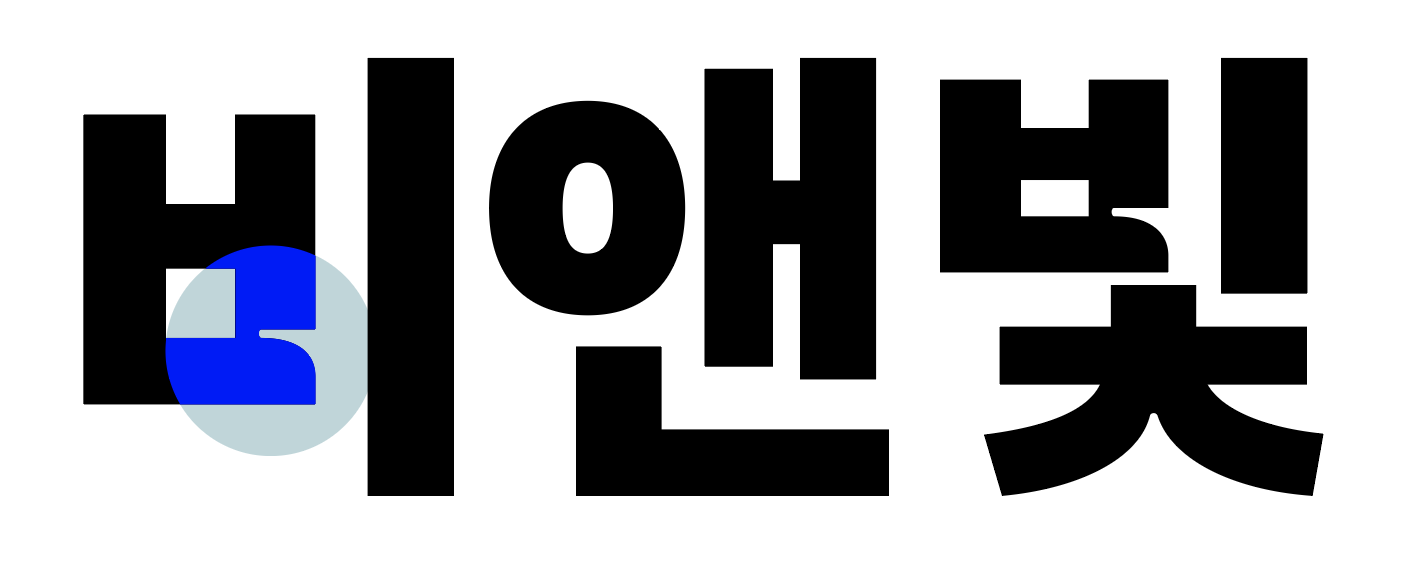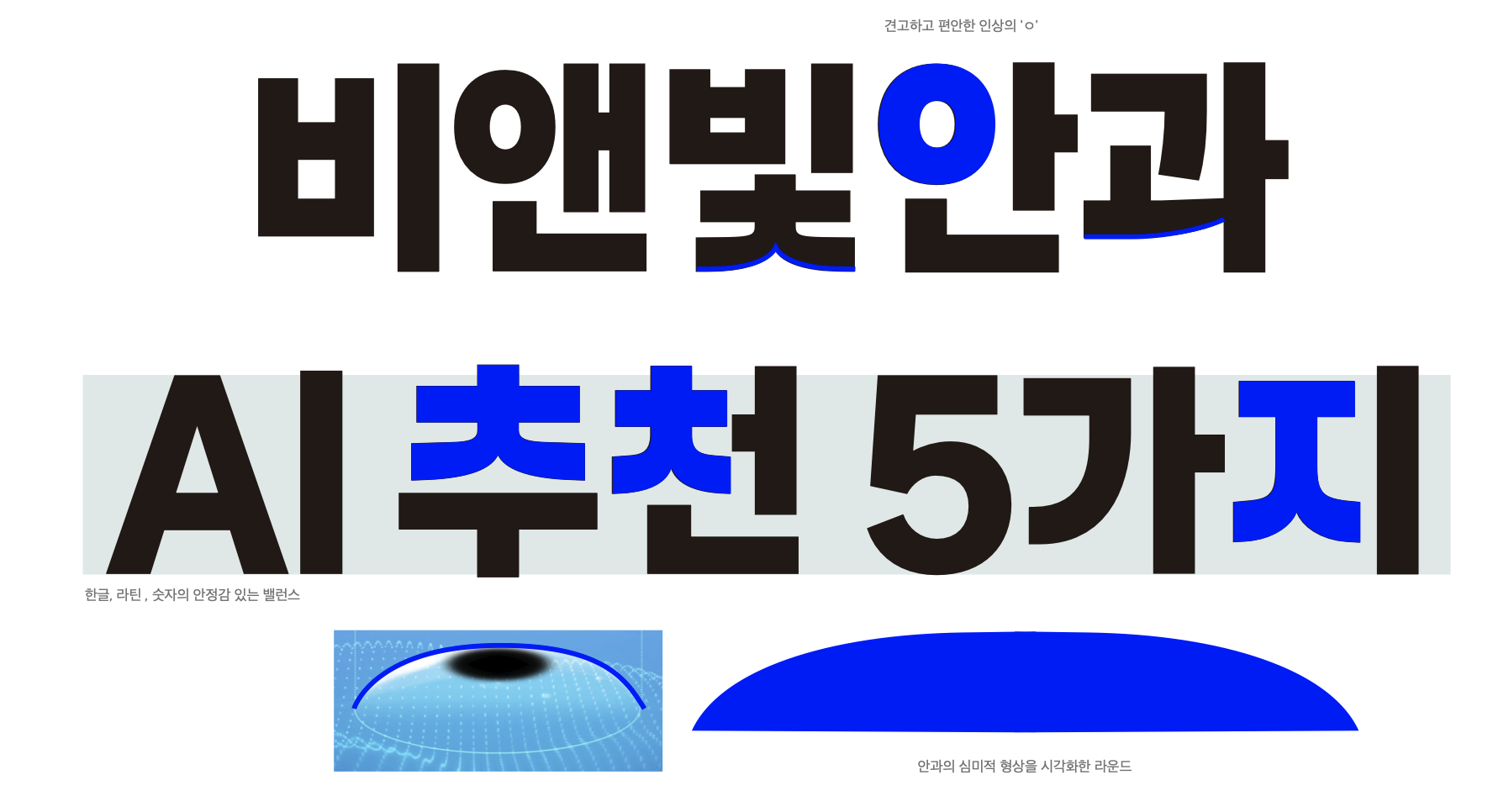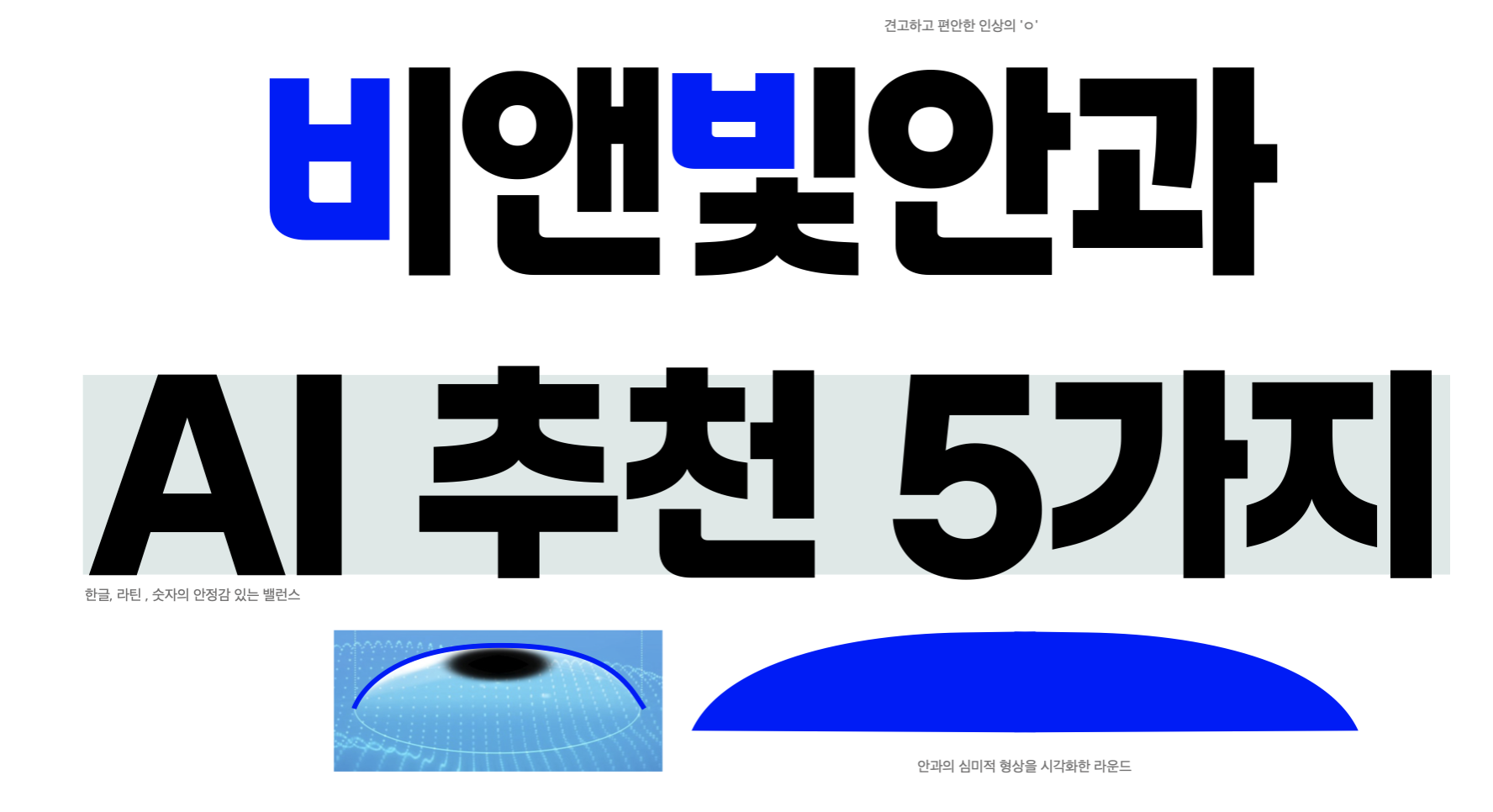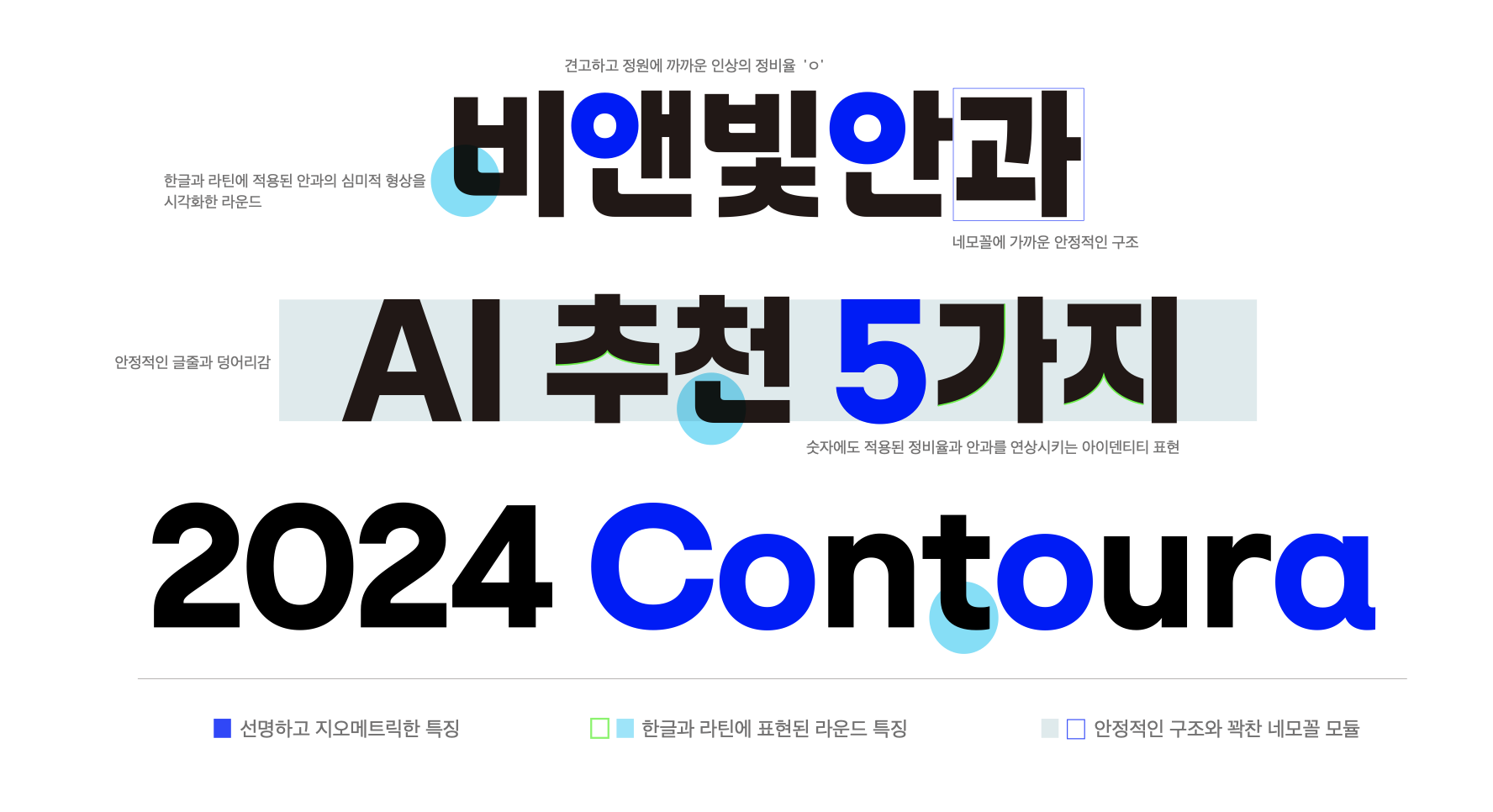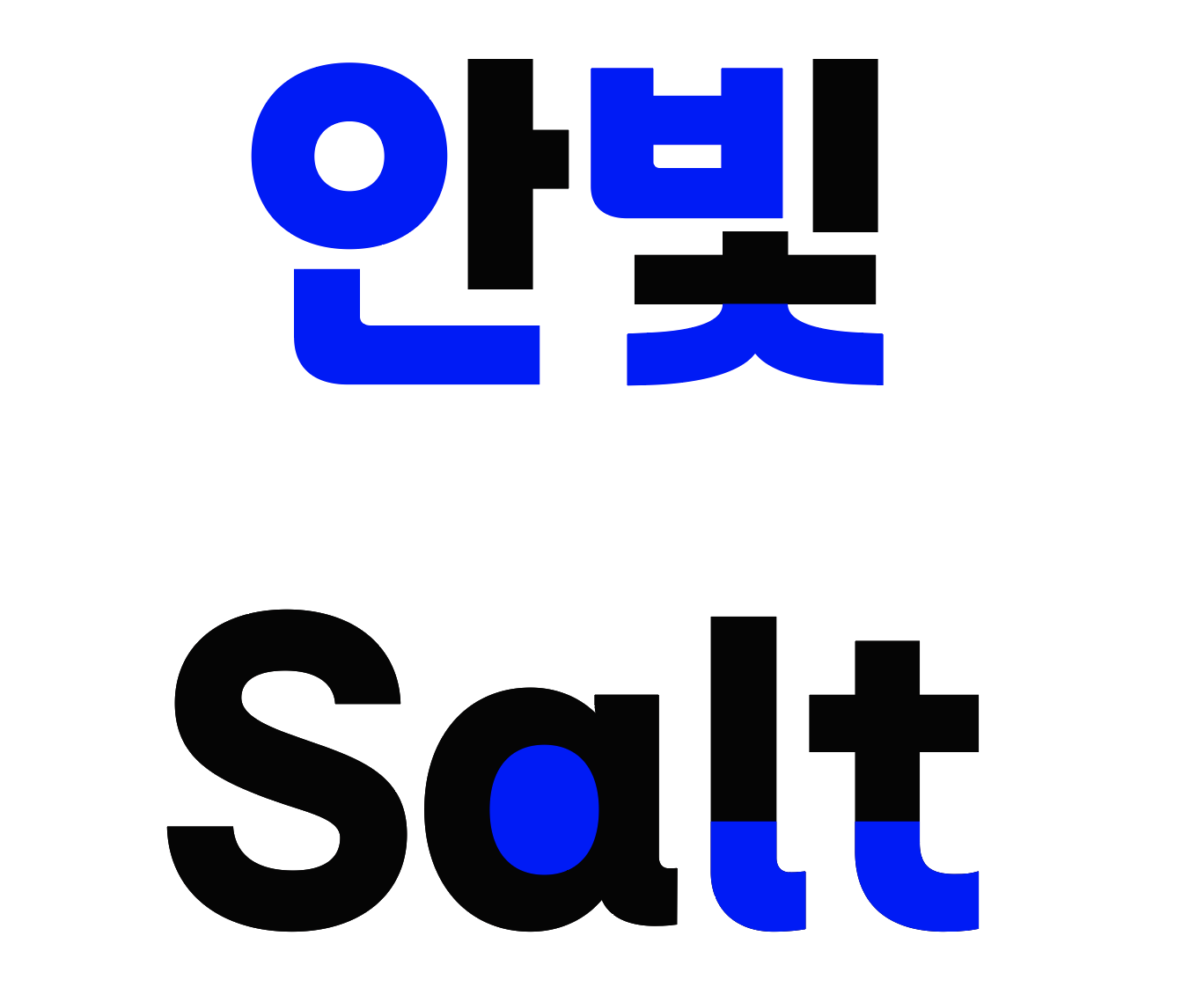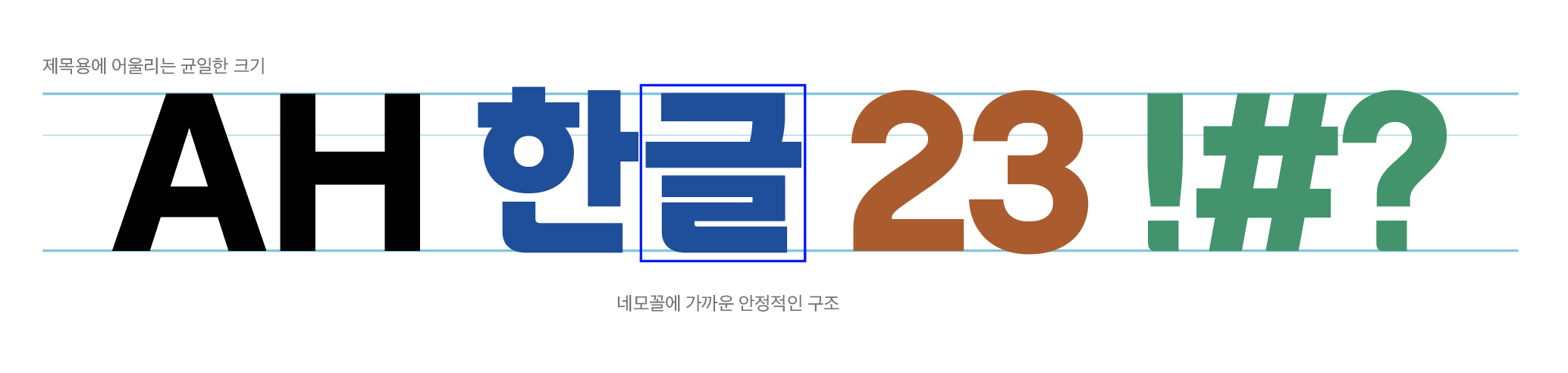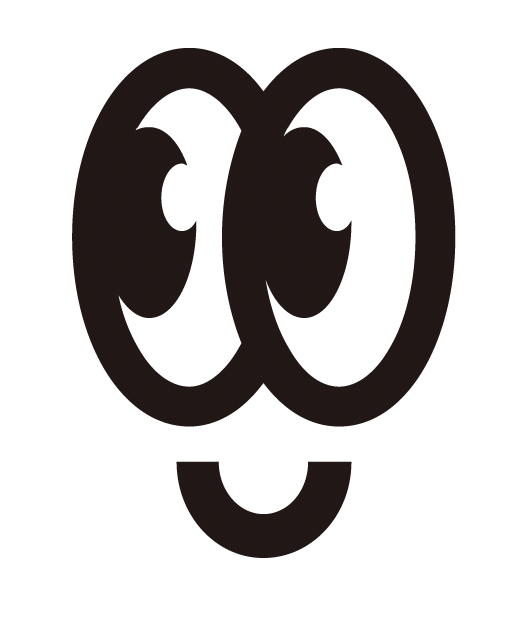
Type Branding
A Font from an Eye Clinic?
B&VIIT Eye Clinic partnered with Sandoll to launch 「B&VIIT LASIK Font」, the first dedicated font created by a medical institution. But why would an eye clinic—a first-generation vision correction hospital that pioneered LASEK surgery in Korea—develop its own font? Beyond strengthening brand identity and communicating the hospital's philosophy more effectively, B&VIIT wanted to give back to their patients and break through the constraints of medical advertising. Their goal was to connect with customers in a more approachable and consistent voice.
Finding Brand Identity Through Process – The Workshop
Before diving into the project, Sandoll held a workshop with B&VIIT's designers—the people at the heart of the brand's visual identity. The goal was to understand the core values the client wanted to embody and develop a genuine, shared understanding of those principles.
There's a subtle but significant gap between abstract ideas and their visual execution. When customers think of B&VIIT, certain words and feelings come to mind, but translating those into concrete visual forms requires precision. Even something as simple as a circle can convey vastly different impressions depending on how it's drawn. The workshop aimed to bridge this gap and align our thinking with the client's vision. We explored what B&VIIT aspired to be and what they wanted to avoid, then calibrated our understanding by examining various market references together to gauge the right direction and degree.
From this foundation, a key insight emerged: "Exploring trendiness rooted in the trust that defines healthcare." With this in mind, we planned to build on a stable structural framework while conveying approachability and honesty to establish credibility. At the same time, we worked to strike a balance—capturing the industry-leading, contemporary feel B&VIIT is known for while achieving a gentle friendliness for their twentysomething audience that felt neither too casual nor too formal.
Defining Visual Identity – Prototype Development
Visual Identity Overview – Prototype Development
Despite this clear direction, our initial prototypes explored a different angle. We wanted to capture the precision inherent to ophthalmology—the meticulous nature of procedures like LASIK and LASEK. Some early concepts emphasized this technical expertise through stable, solid forms that visualized the "precision" representing the clinic's specialized capabilities and advanced technology.
*Visual Elements Expressing Laser Precision
Unlike other medical fields, the "ultra-precision" required in ophthalmology—where we're literally working with people's eyes—felt critically important. Vision correction surgery involves lasers calibrated to the micron level interacting with the corneal surface. We thought this could be expressed visually, capturing that sense of cutting-edge technology and industry leadership that defined the brand.
While these explorations with intricate interior details didn't align with B&VIIT's desired tone, leading us to quickly recalibrate, it's natural in the prototype phase to cast a wider net. As rounds of prototyping progress, we systematically narrow the scope.
Even concepts that aren't selected serve an important purpose—they help clarify the right direction. What gets chosen and what doesn't both carry significant meaning in their own way.
*Round 1 – Concept visualizing the curvature of the eye and cornea
Round 2 – Concept applying geometric forms with friendly rounded elements
Ultimately, we moved forward with a design that combined solid, stable structure with an aesthetically refined visualization of ophthalmic lens forms, and began developing it further.
Design Features of 「B&VIIT LASIK Font」
「B&VIIT LASIK Font」 isn't just another brand typeface—it's a font that embodies the philosophy and values of B&VIIT Eye Clinic. So what makes this typeface truly distinctive?
1. Sharp, geometric structure
- The overall form of the font is designed based on precise proportions.
- It creates a clean and clear impression, much like sharp vision.
2. Design elements inspired by the vision test chart (Landolt ring)
- Referencing the structure of the ‘Landolt ring’ used in vision tests, the design clearly expresses vertical and horizontal alignment.
- Through this, the meaning of B&VIIT Eye Clinic as “a hospital that helps people achieve clear vision in daily life” is also reflected in the font itself.
Landolt ring image source: Vision test diagram — Korea Research Institute of Standards and Science)
3. Soft, rounded forms inspired by the cornea and the eye
- Rounded forms motivated by the curvature of the eye and cornea convey aesthetic refinement and a sense of warmth in the letterforms.
4. A space-filling, square-proportioned display font
- Designed for use as a headline font, the characters fully occupy their space to create a strong sense of visual weight.
- It is engineered to deliver excellent readability in advertising and promotional materials.
Last December, we completed B&VIIT Eye Clinic’s dedicated font, 「B&VIIT LASIK Font」. We are currently developing a body text font designed to convey a more measured and composed voice and presence. This body font retains the core DNA of the display font 「B&VIIT LASIK Font」 while featuring subtle rounded forms. True to its role as a body text font, it is being designed with a stable structure and high readability at its core. The body font that will pair with 「B&VIIT LASIK Font」 will be released soon, and we look forward to sharing it with you.
When you type characters outside the 2,780 Hangul glyphs, these faces appear!